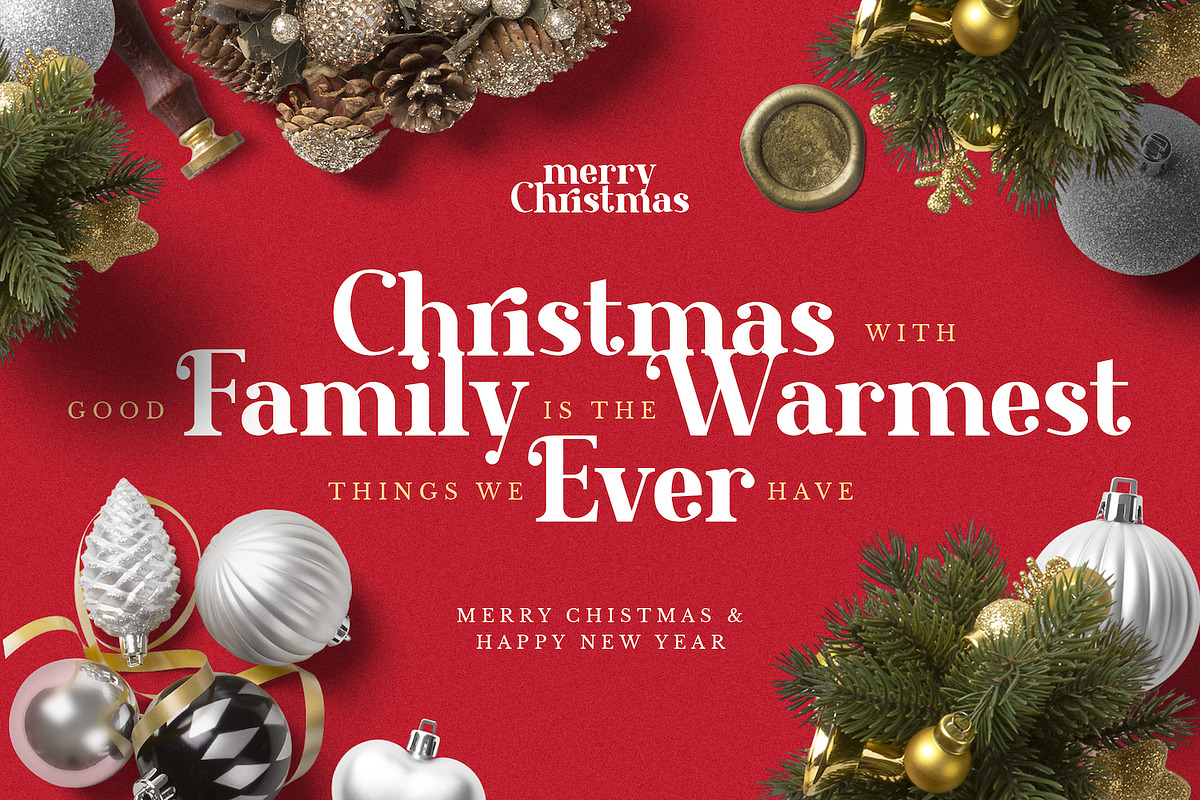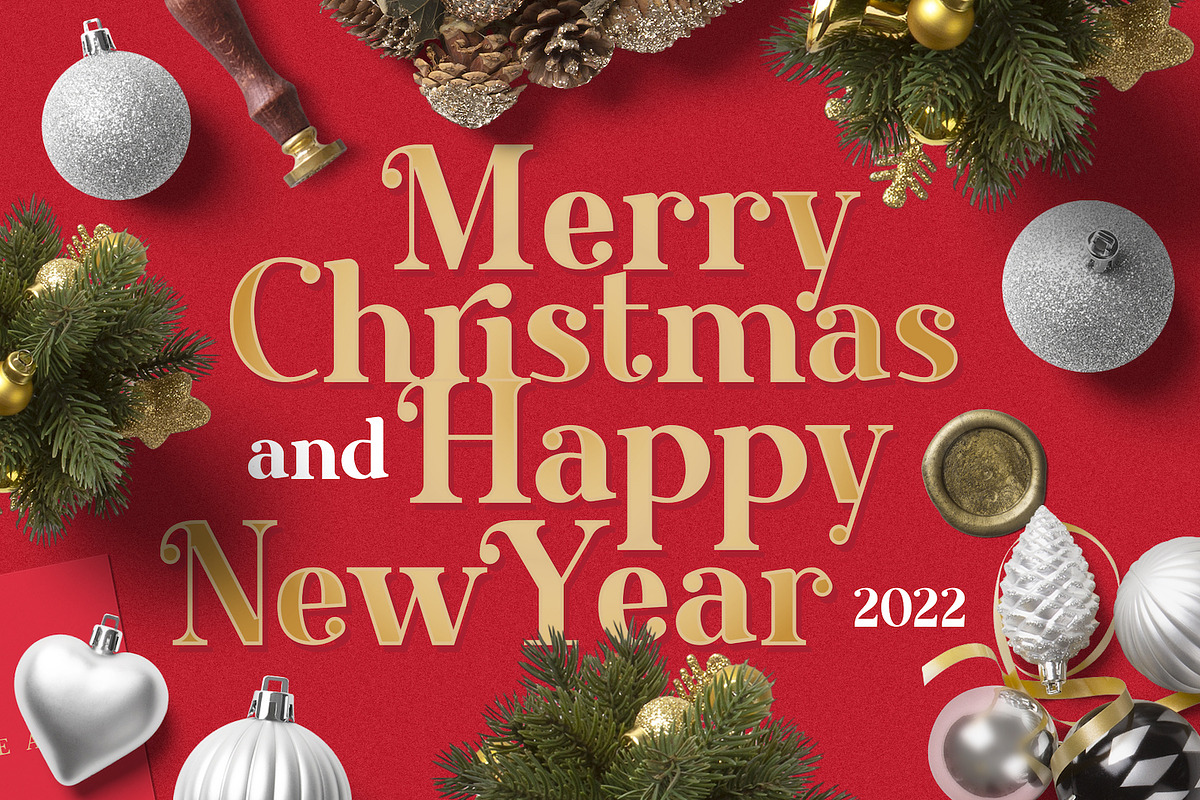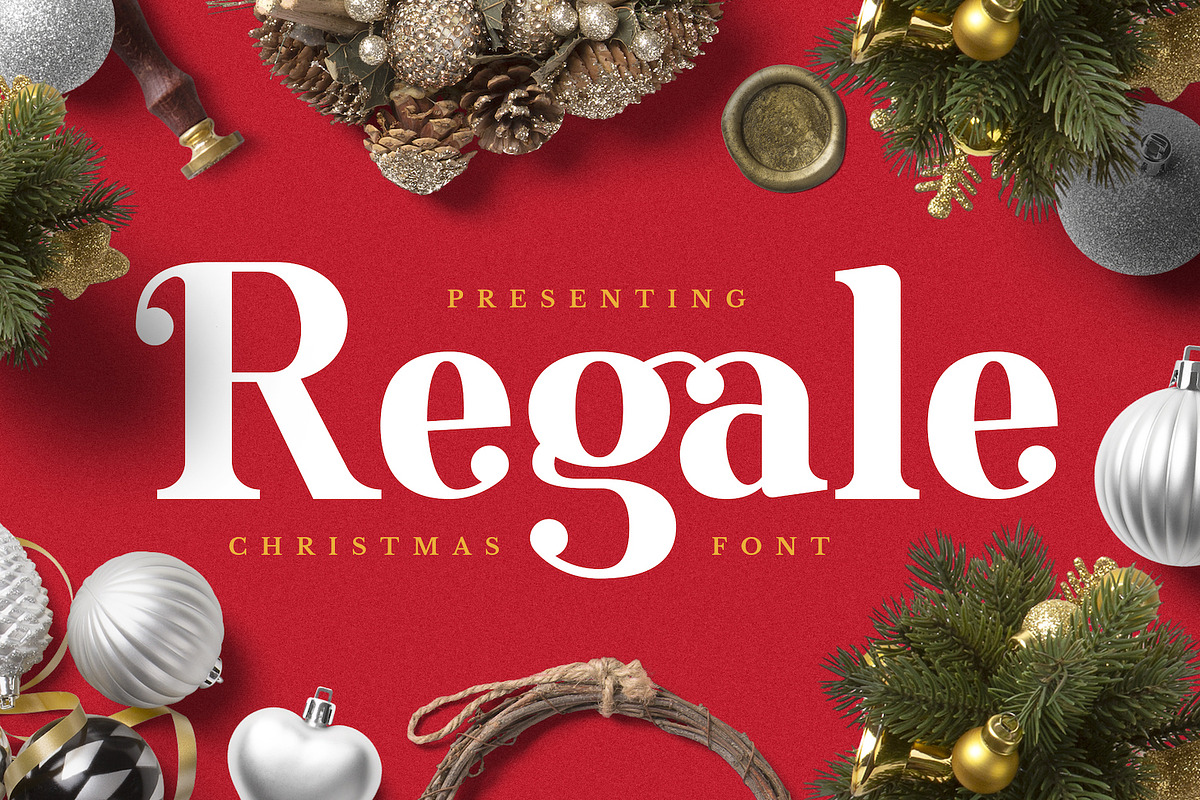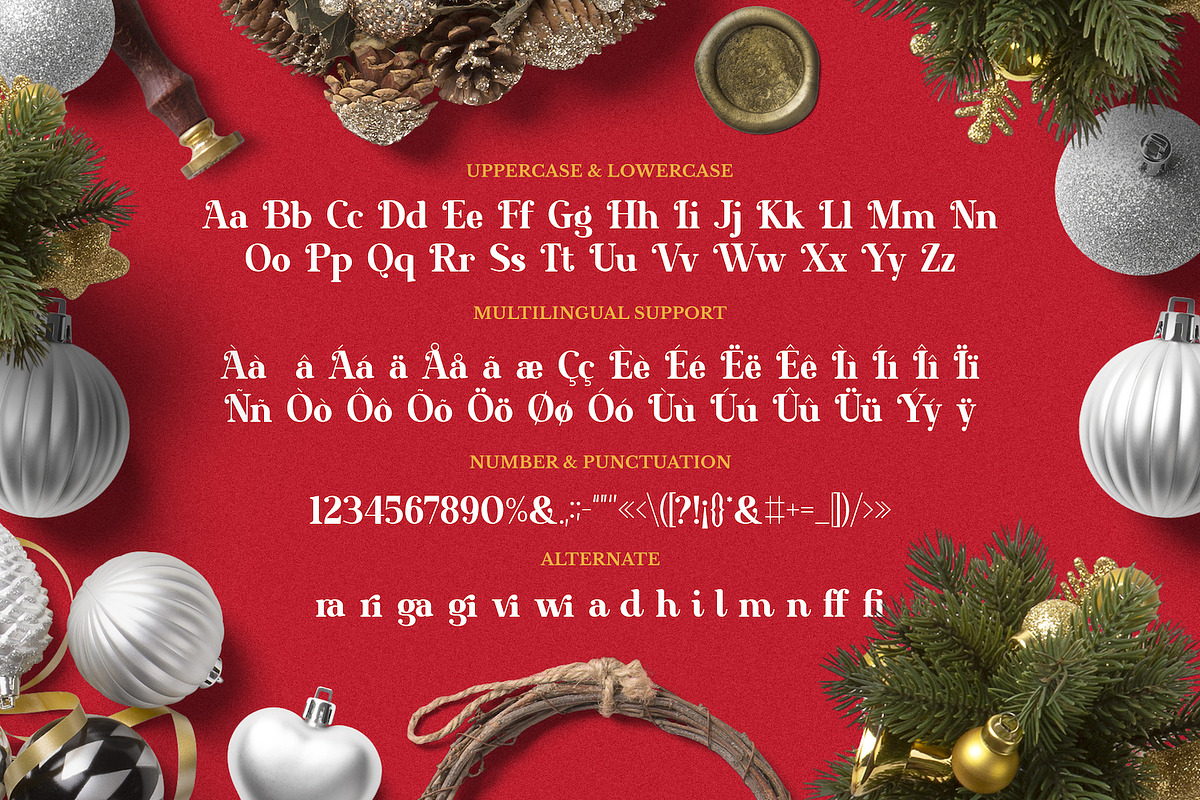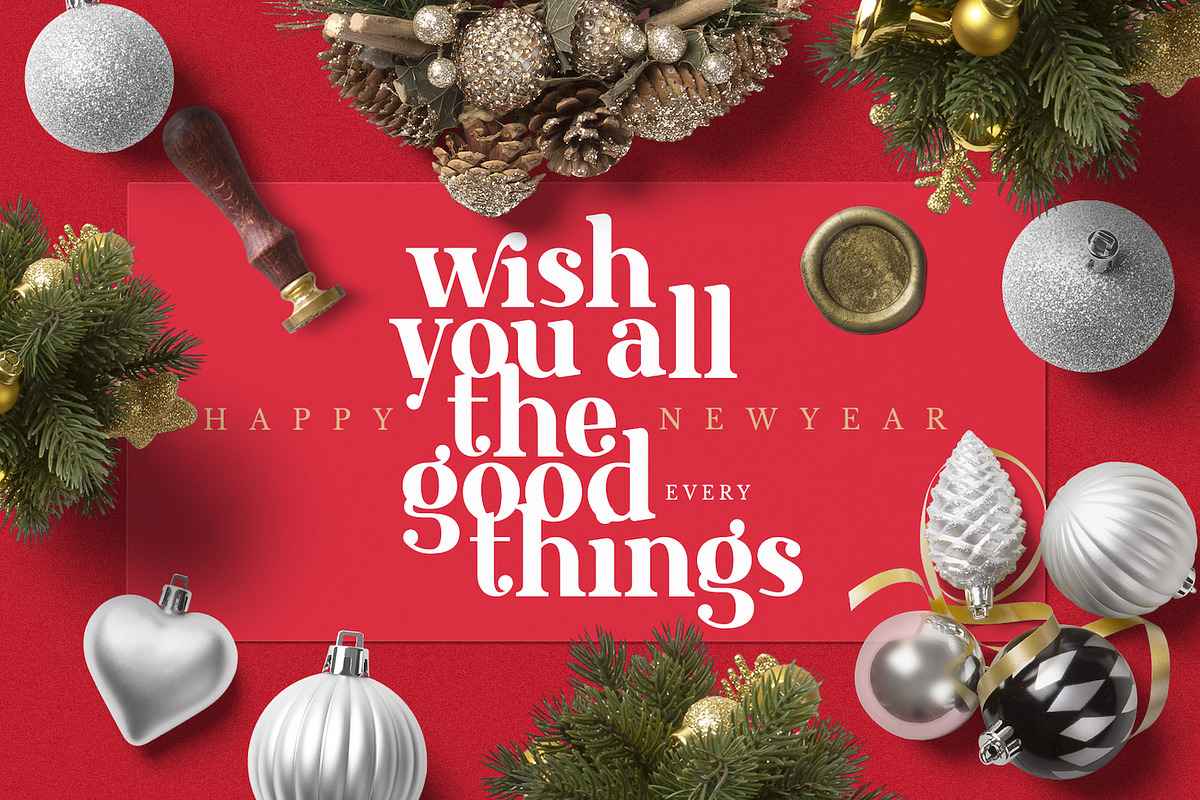
Regale Font
Runsell’s Font Product is perfect for many of your projects like logos & branding, photography, invitations, watermarks, advertisements, product designs, stationery, wedding designs, labels, product packaging, special events and much more.